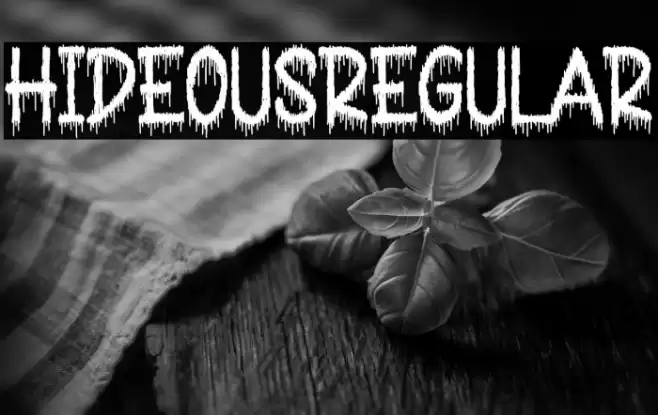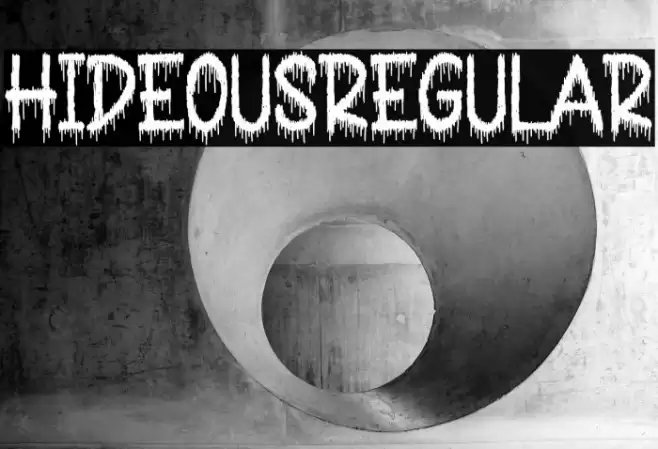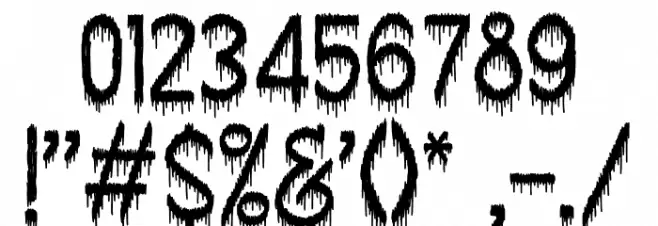
HideousRegular Font
HideousRegular Description
This font features a unique, dripping effect that gives it a distinctly eerie and unsettling appearance. The characters are bold and jagged, with each letter appearing as if it is melting or oozing downward. This creates a visually striking and memorable style that is perfect for themes related to horror, Halloween, or anything that requires a spooky or grotesque aesthetic. The uppercase and lowercase letters maintain a consistent style, ensuring readability while still delivering a strong visual impact. The numbers and special characters follow the same dripping motif, making them cohesive with the rest of the font.
A bold, dripping font perfect for horror and Halloween themes from Regular fonts.